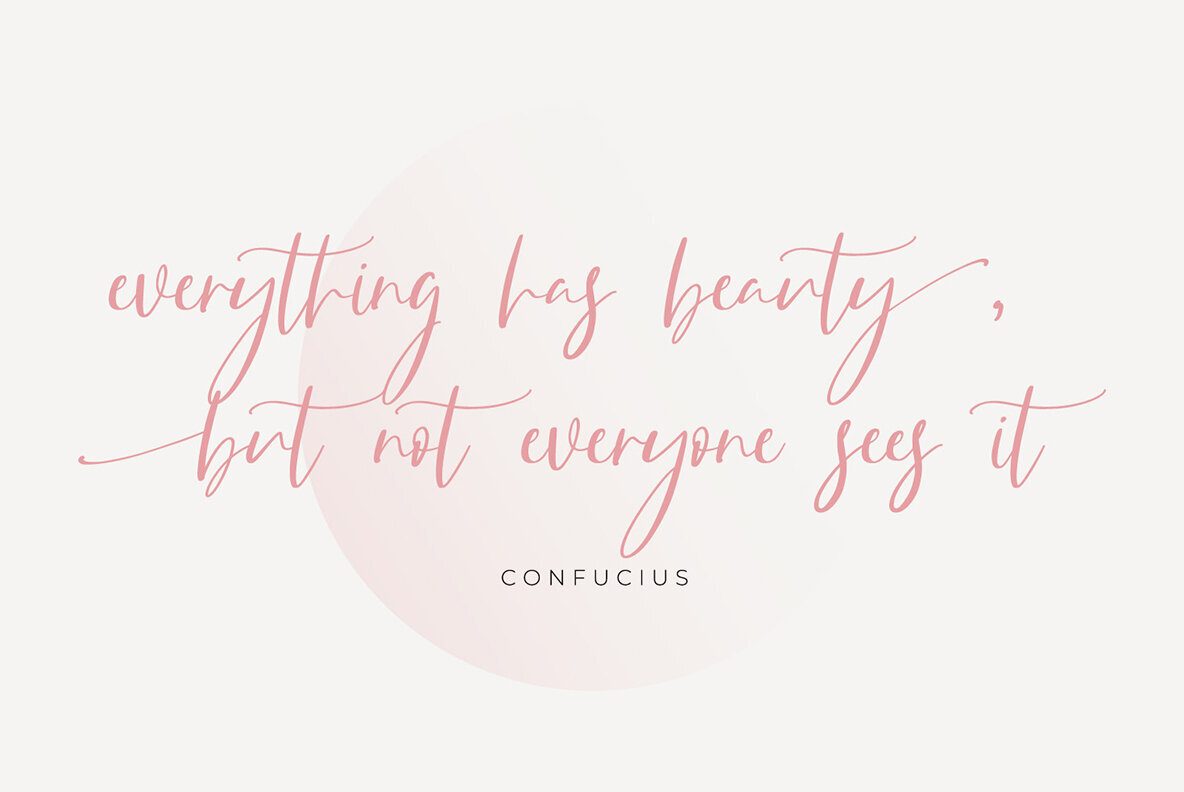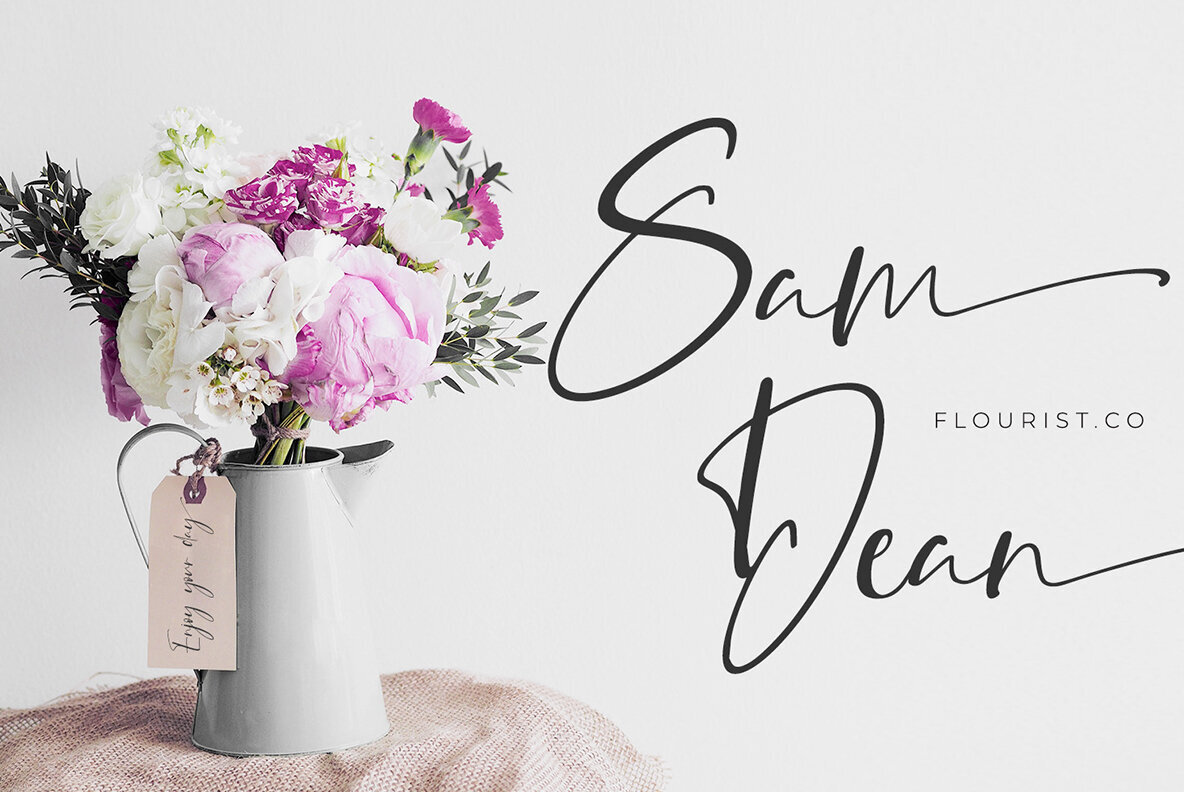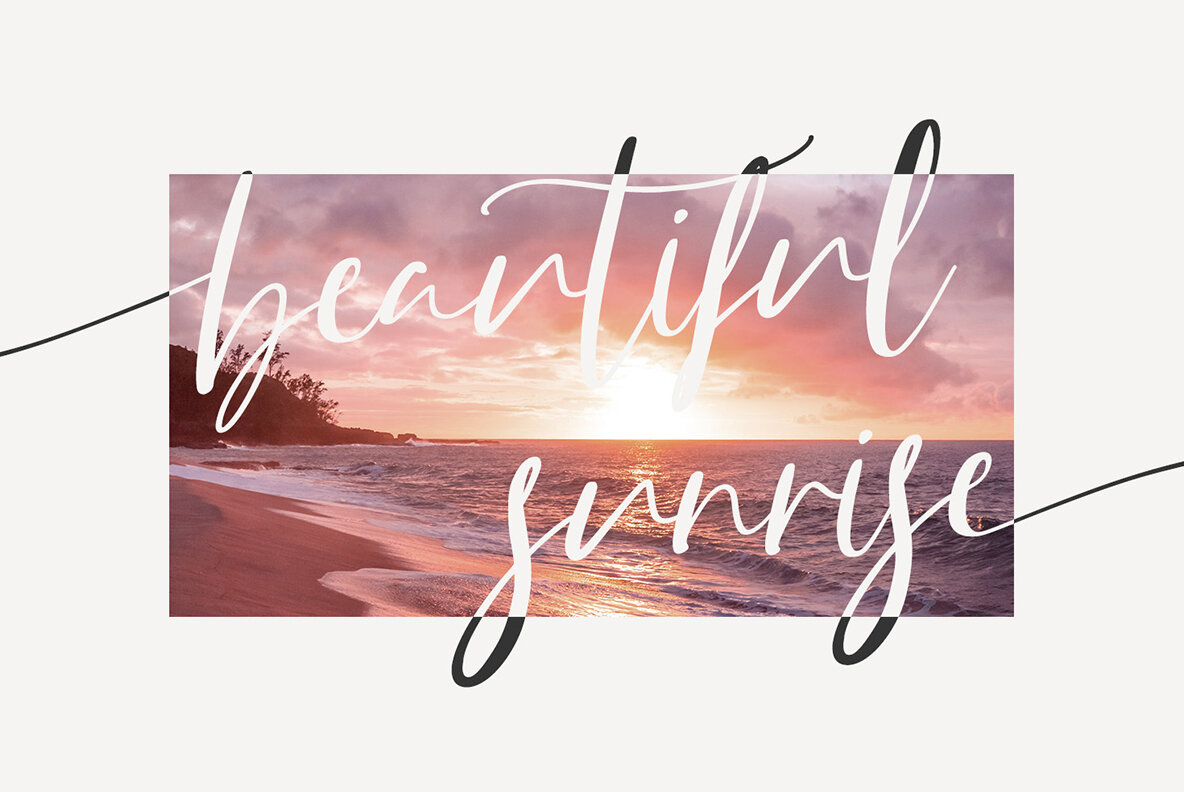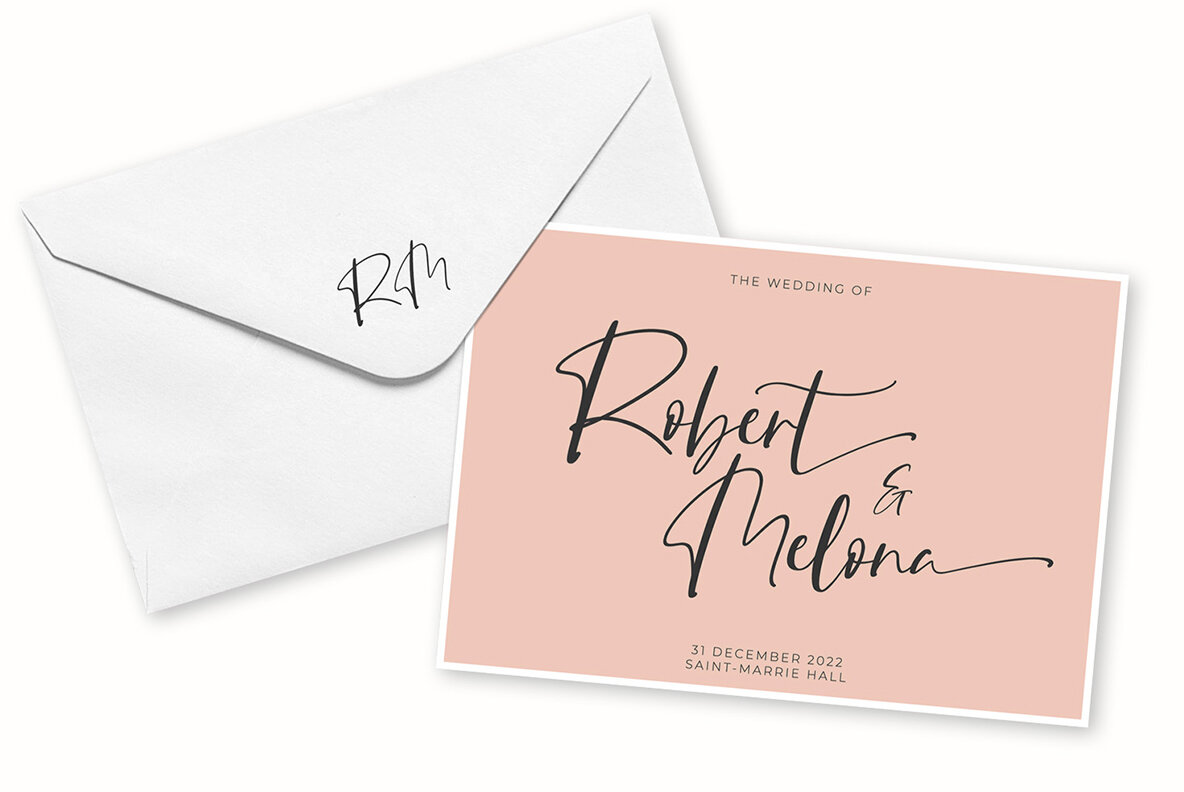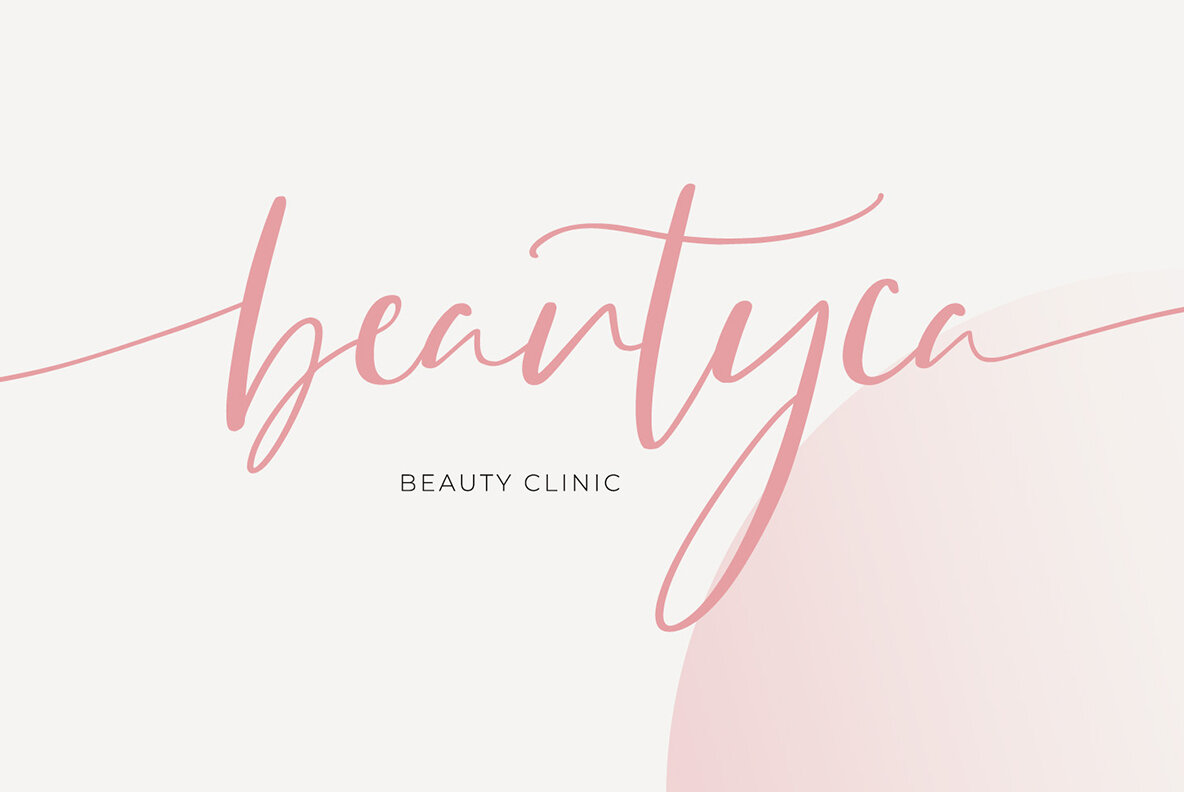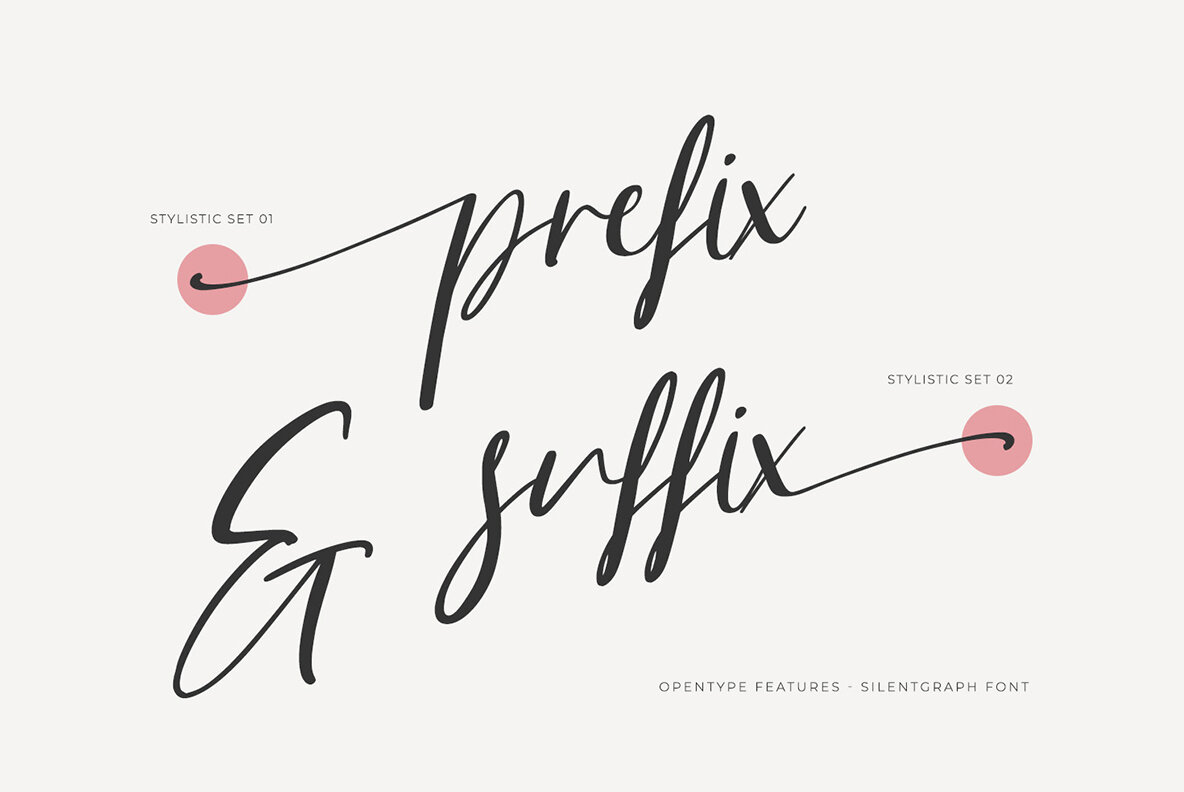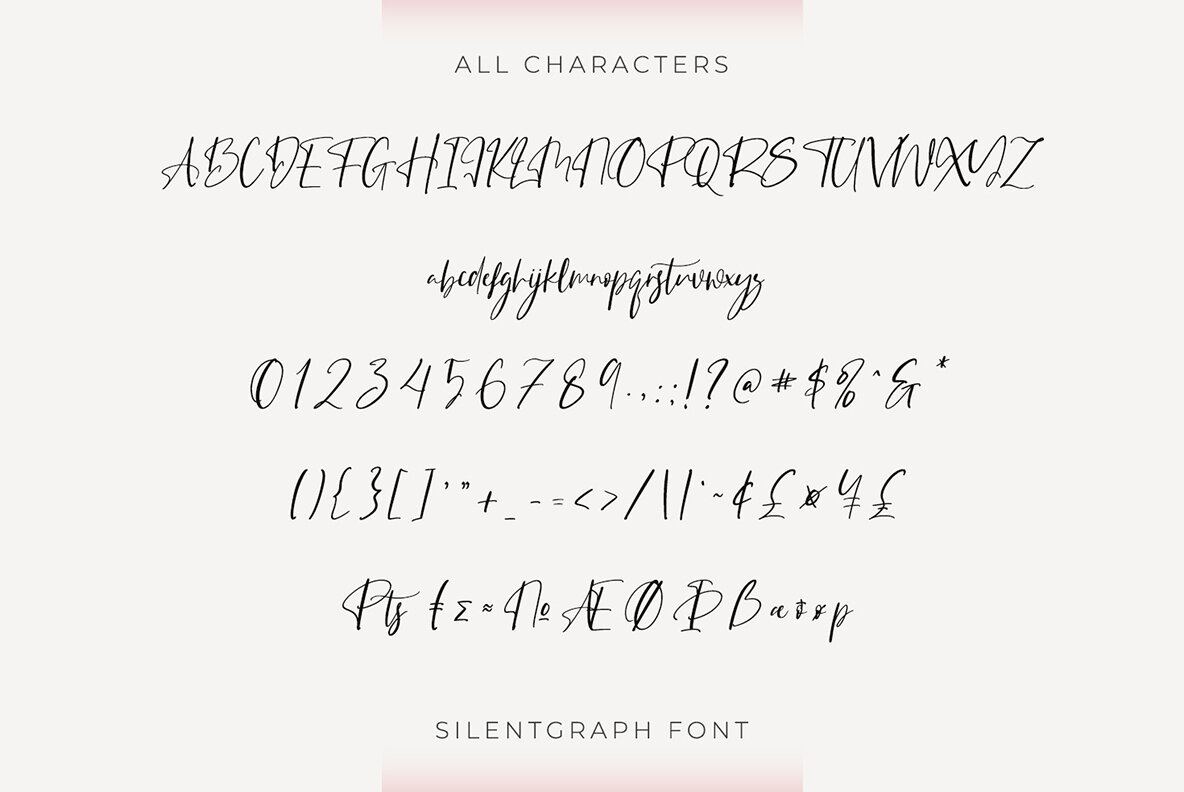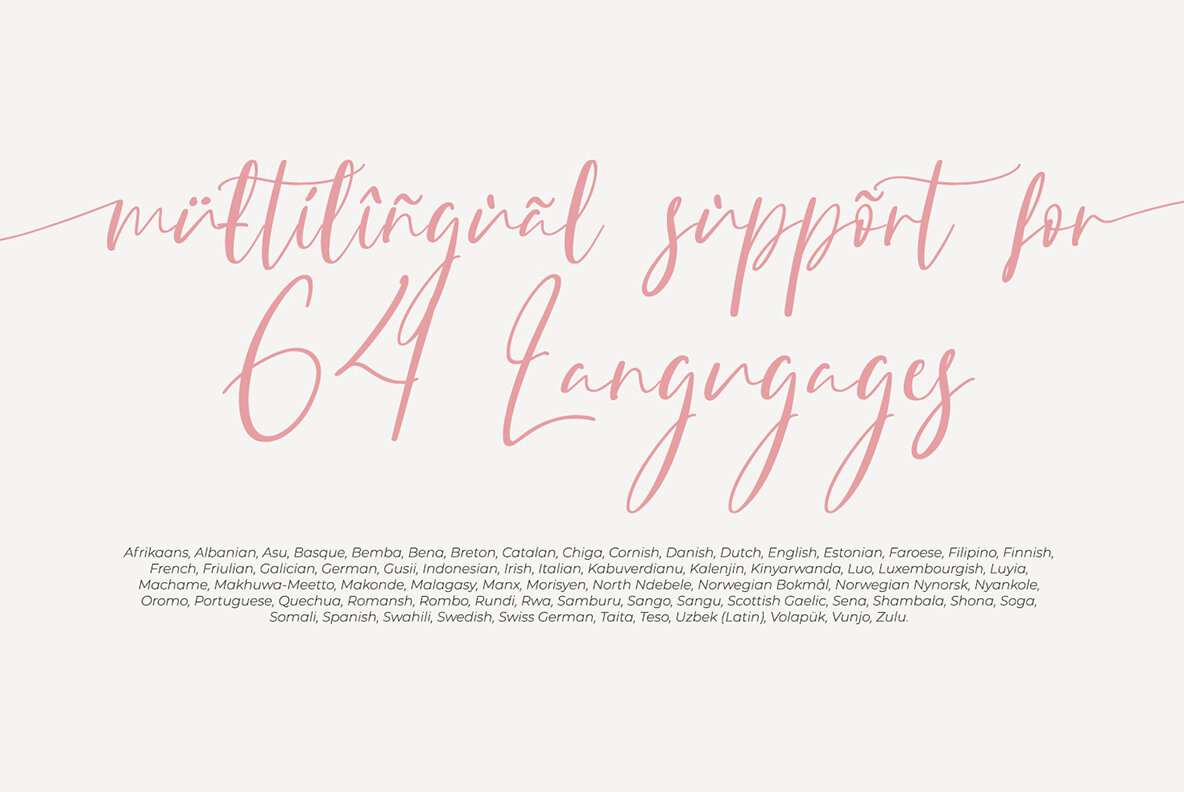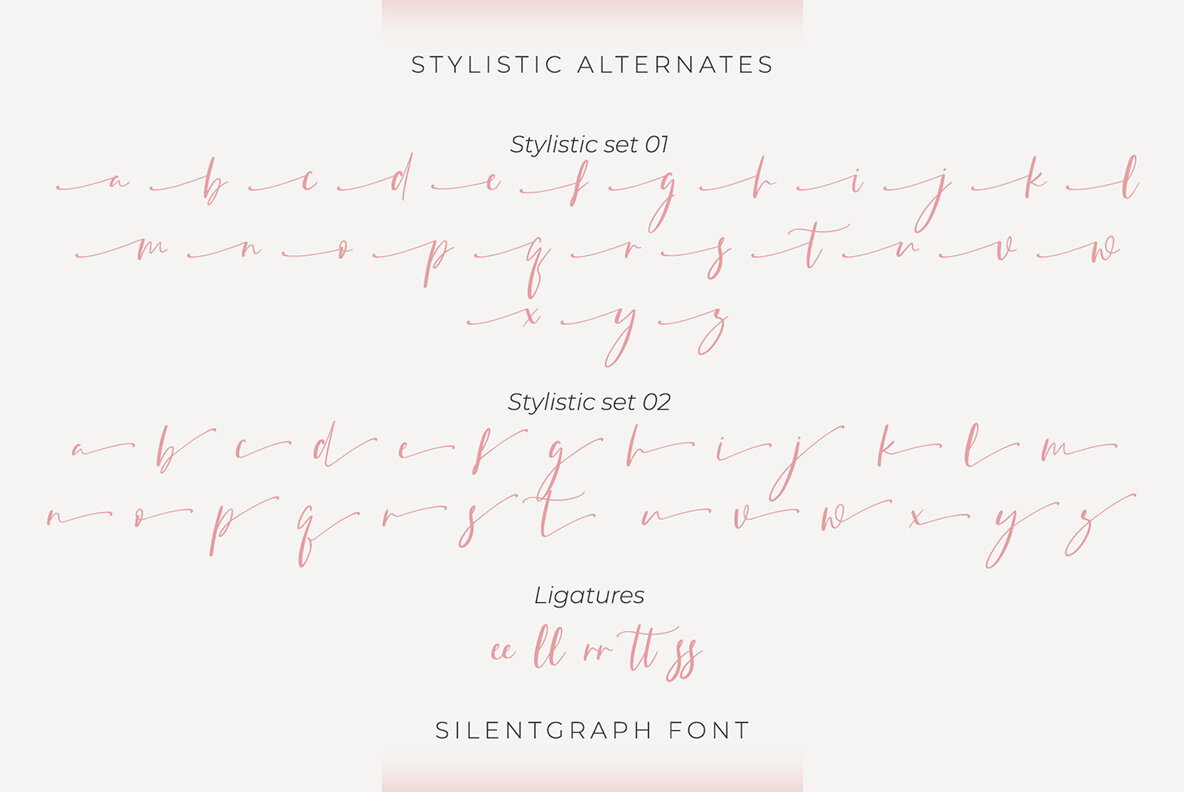
Silentgraph Font
Silentgraph Regular
Silentgraph captures the essence of handcrafted script fonts, ensuring your design speaks volumes with elegance. Crafted to excel in large text, it showcases interconnected cursive letters with expressive strokes and pronounced curves. This font is imbued with high contrast that enhances its distinctive character, making it suitable for a variety of design needs. Features: Silentgraph is versatile, perfectly fitting for projects ranging from posters and banners to logos and magazine covers. Its stylish appeal can also elevate printed products, invitations, and social media graphics. Dive into creative possibilities with Silentgraph, a font designed to stand out gracefully.Silentgraph: The Soulful Script Font